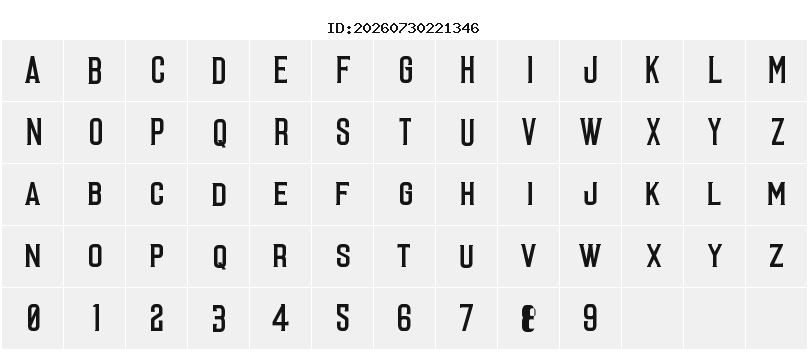
Louda SC Preview
• Font Name: Louda SC
• Full Font Name: Louda-RegularSC
• Copyright: Michael Krottmair
• Designer: Michael Krottmair
About Louda SC.ttf
Louda SC.ttf is a modern, elegant sans-serif font designed for ultimate readability and visual harmony. Perfect for branding, headlines, web design, and print materials.